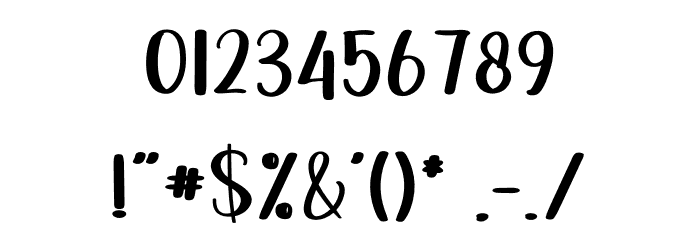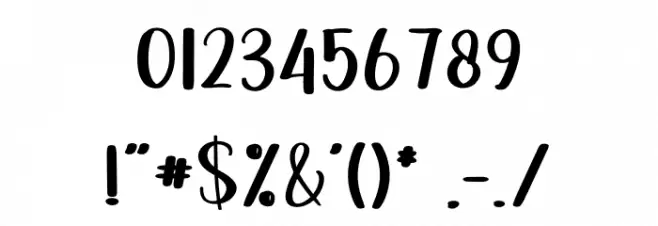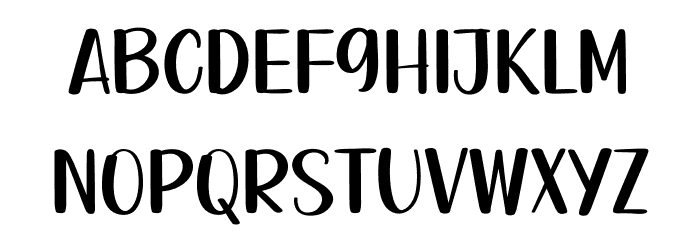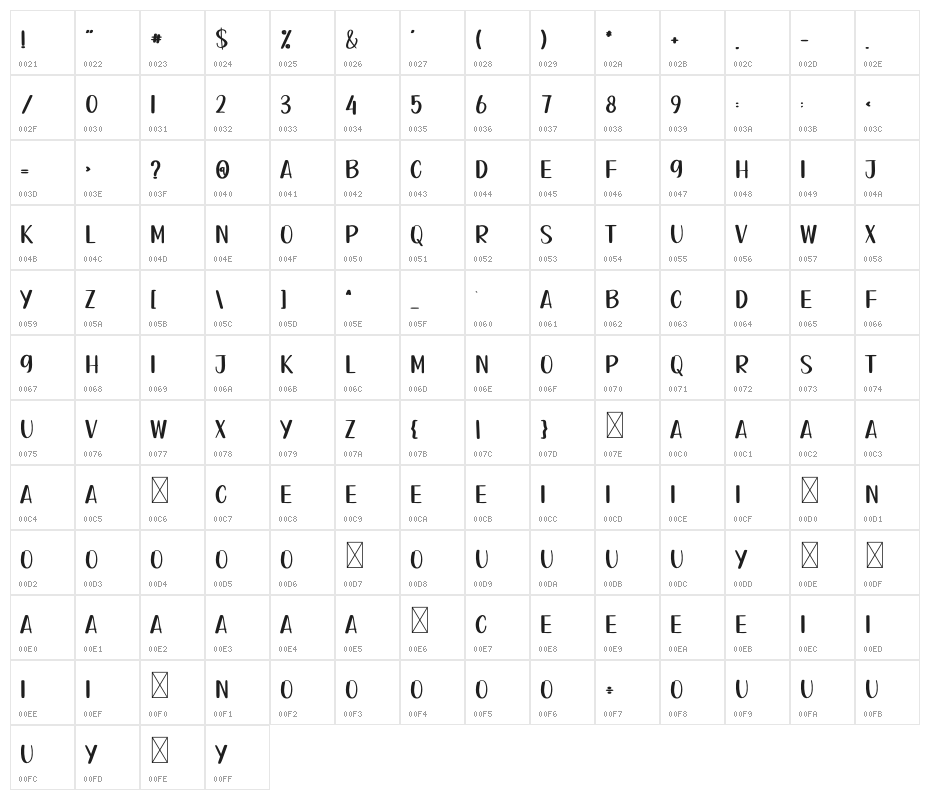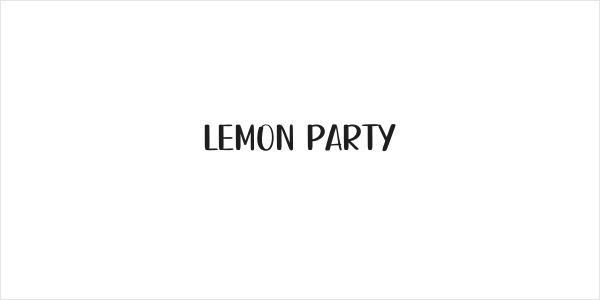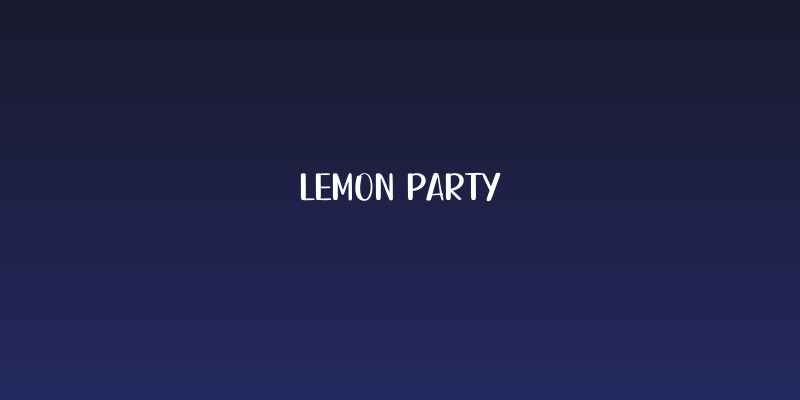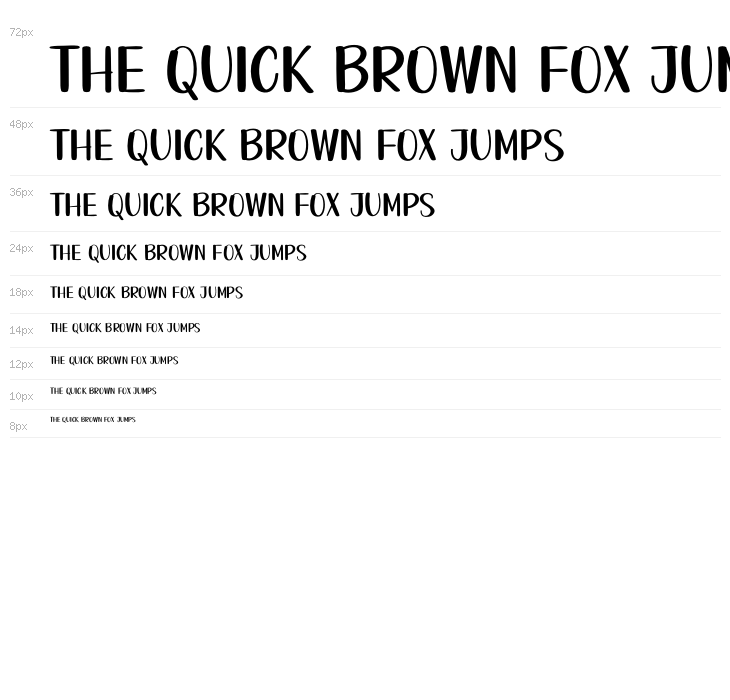
Lemon Party Font
Lemon Party Description
A playful, rounded sans-serif font with a hand-drawn, brush-like appearance. The strokes are bold and slightly irregular, giving a casual and friendly feel. The characters are upright with consistent thickness and open counters.
| Overall Style | Playful, Casual, Handwritten |
| Use Case | Headlines, Posters, Logos, Informal Branding |
| Proposed Projects | ChildrenΓ’β¬β’s books, posters, greeting cards, branding for casual or creative businesses, social media graphics. |